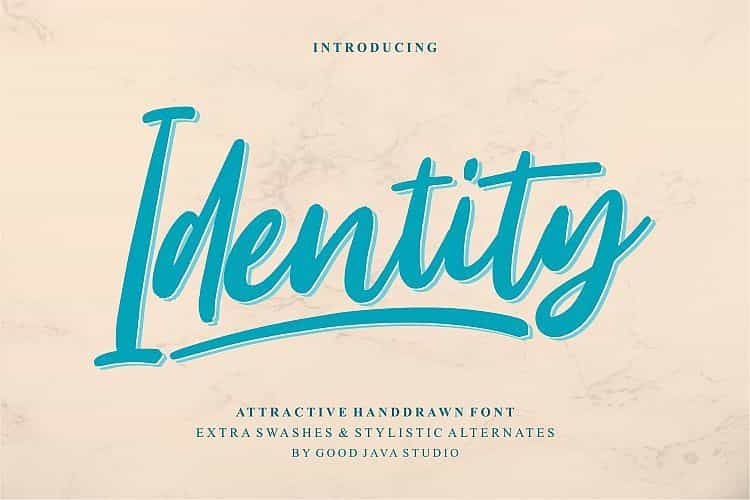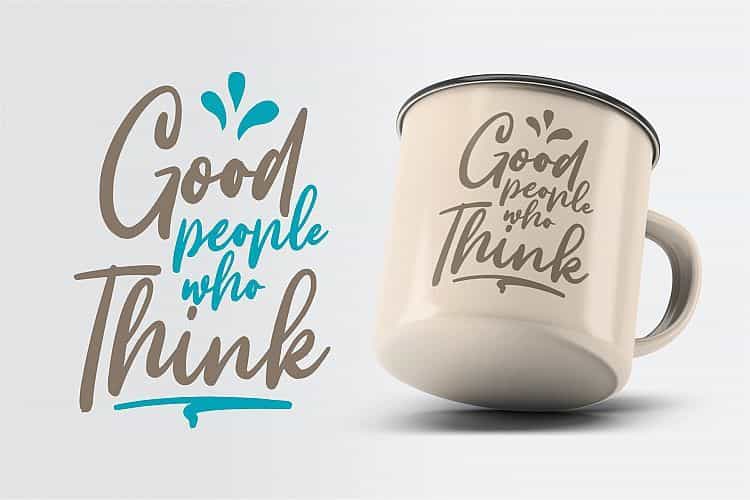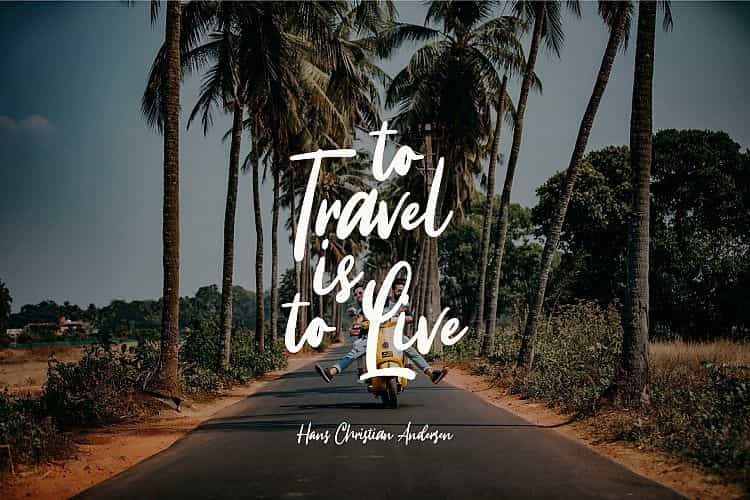
Discover Identity Script Font, part of the Brush Handwritten collection—a versatile and unique font perfect for adding a personal touch to your projects. Download it for free and enjoy crafting designs with style, from invitations to social media posts. This font is available exclusively for personal use, giving you the freedom to create without limits. Unlock your creativity with Identity Script Font today!
The best free fonts package today is a script fonts. This is a perfect script that will make your designs even more beautiful!Introducing Identity Font!It is created and distributed by Good Java Studio. Identity font is a modern & naturalized script font.